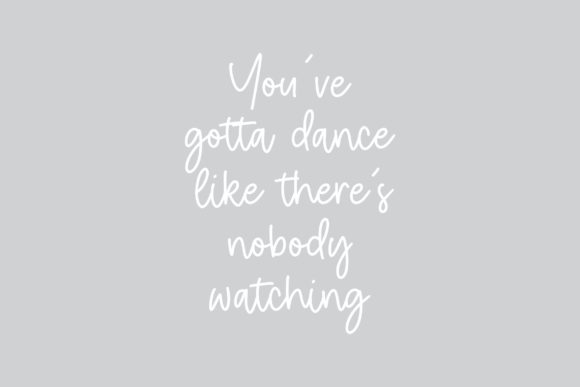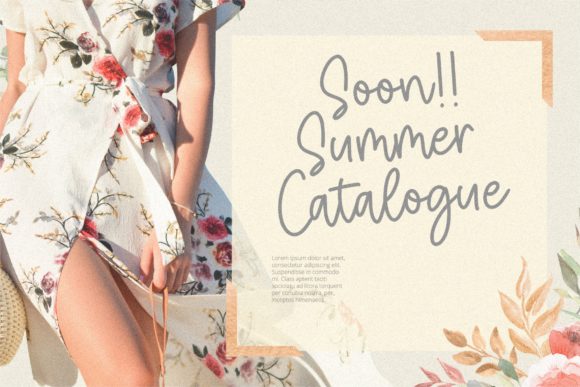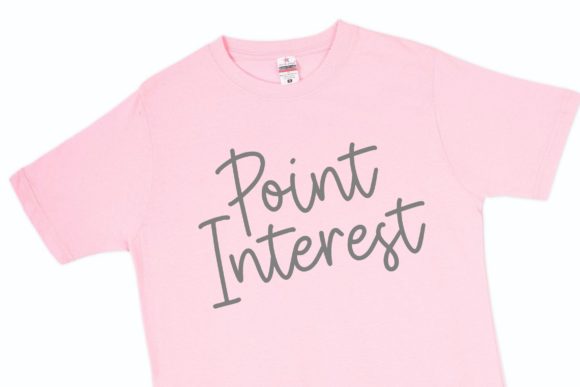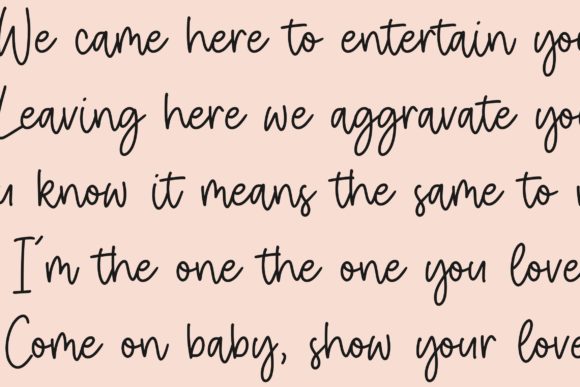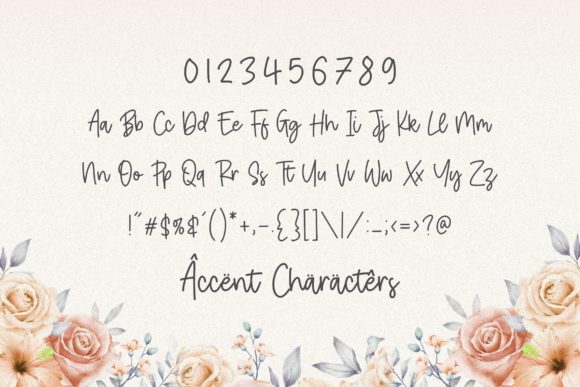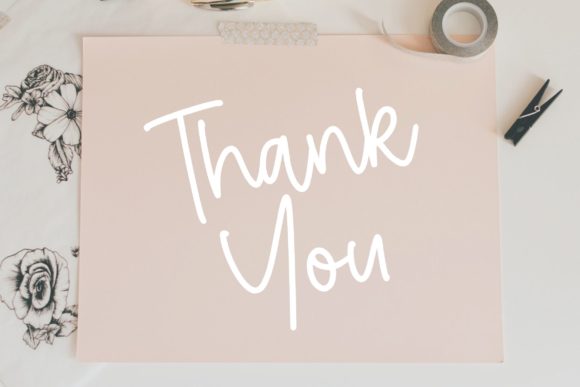
Introducing Goldie Dreambox Font: The Sweet and Friendly Handwritten Font
Are you tired of using the same old fonts in your designs? Look no further! Goldie Dreambox Font is here to revolutionize the way you create. This sweet and friendly handwritten font is perfect for designers and crafters who want to add a personal touch to their work. With its natural and unique style, Goldie Dreambox Font is incredibly versatile and can be used in a wide range of designs.
The Characteristics of Goldie Dreambox Font
Goldie Dreambox Font is a handwritten font that exudes warmth and friendliness. Its natural and unique style makes it perfect for designs that require a personal touch. The font has a whimsical feel to it, with subtle imperfections that give it a human touch. The letters are carefully crafted to create a sense of movement and fluidity, making it perfect for designs that require a sense of energy and playfulness.
The Benefits of Using Goldie Dreambox Font
So, why should you use Goldie Dreambox Font in your designs? Here are just a few benefits:
- Unique and Eye-Catching: Goldie Dreambox Font is unlike any other font out there. Its unique style is sure to grab attention and make your designs stand out from the crowd.
- Versatile: This font can be used in a wide range of designs, from invitations and greeting cards to posters and social media graphics.
- Easy to Read: Despite its whimsical feel, Goldie Dreambox Font is incredibly easy to read, making it perfect for designs that require a clear and concise message.
- Customizable: With Goldie Dreambox Font, the only limit is your imagination! You can use it to create a wide range of designs, from simple and elegant to bold and playful.
How to Use Goldie Dreambox Font in Your Designs
Using Goldie Dreambox Font in your designs is easy! Here are a few tips to get you started:
- Pair it with Other Fonts: Goldie Dreambox Font pairs perfectly with other fonts, such as sans-serif fonts and script fonts. Experiment with different combinations to find the perfect look for your design.
- Use it for Headings and Titles: Goldie Dreambox Font is perfect for headings and titles, where its unique style can really shine.
- Add it to Your Social Media Graphics: Use Goldie Dreambox Font to add a personal touch to your social media graphics, such as Instagram posts and Facebook covers.
- Use it for Crafting Projects: Goldie Dreambox Font is also perfect for crafting projects, such as making cards, gift tags, and other DIY crafts.
Who is Goldie Dreambox Font for?
Goldie Dreambox Font is perfect for:
- Graphic Designers: If you’re a graphic designer looking for a unique and versatile font to add to your collection, Goldie Dreambox Font is the perfect choice.
- Crafters: If you love crafting and making DIY projects, Goldie Dreambox Font is a great addition to your toolkit.
- Small Business Owners: If you’re a small business owner looking for a way to add a personal touch to your branding, Goldie Dreambox Font is a great option.